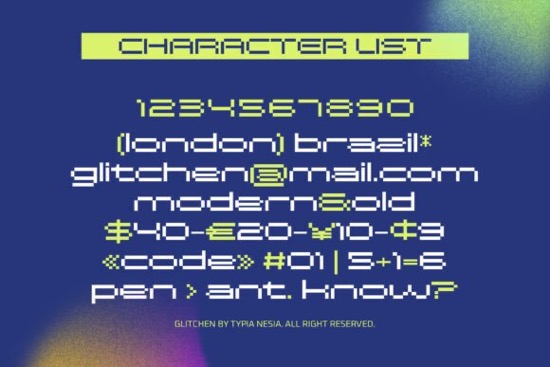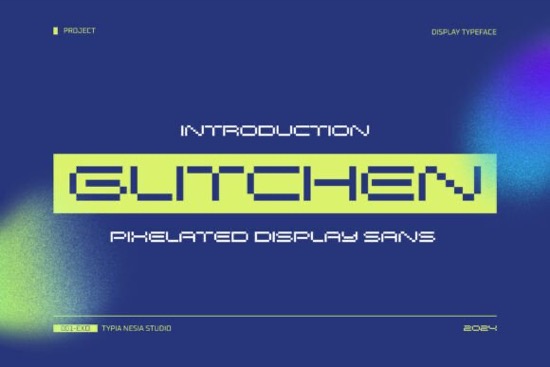
Glitchen is a unique display font that has a classy pixel style. This type of font gives a classic look and feels expensive. The font merger of futuristic and pixelated design brings a cutting-edge look that blends retro 8-bit aesthetics with a modern twist. The blocky, glitch-inspired design exudes energy and movement, making it ideal for sports branding, gaming interfaces, digital interfaces, tech branding, esports logos, and futuristic posters or any project that wants to evoke a digital, competitive atmosphere.
Glitchen Display Font
Name: Glitchen
Categories: Display, Pixel/Bitmap